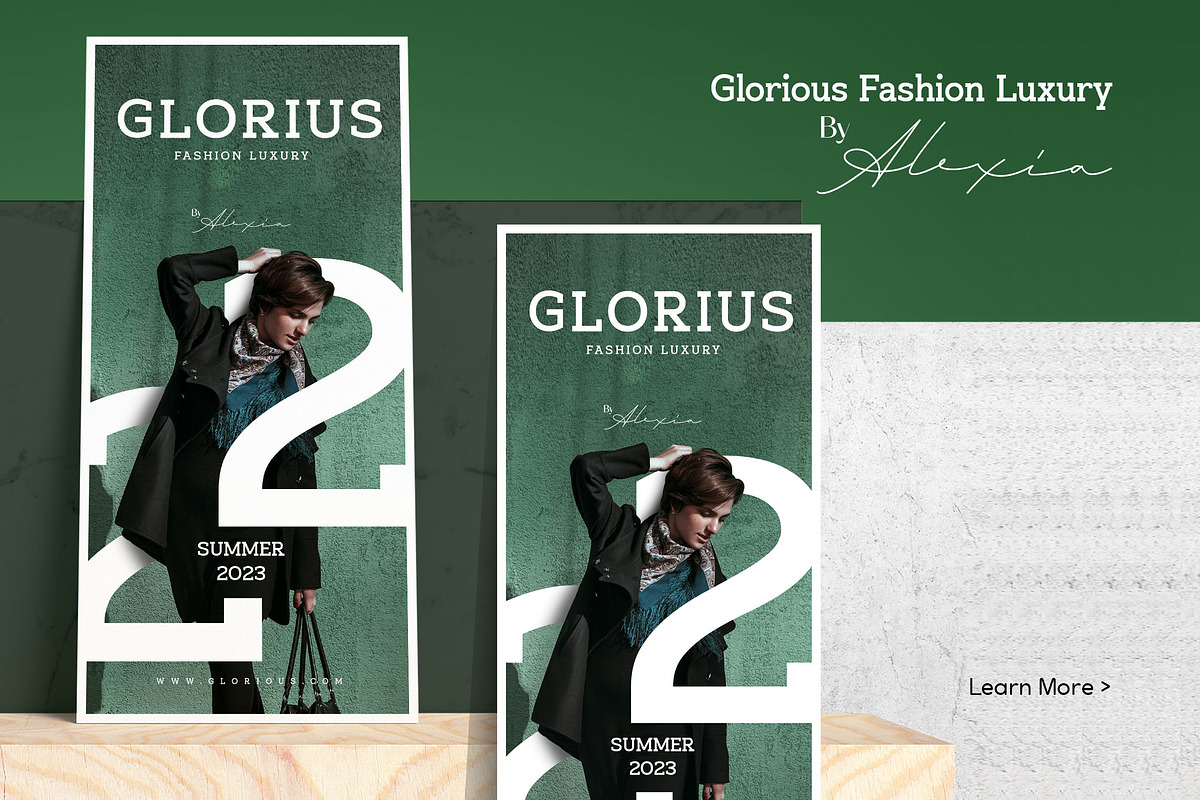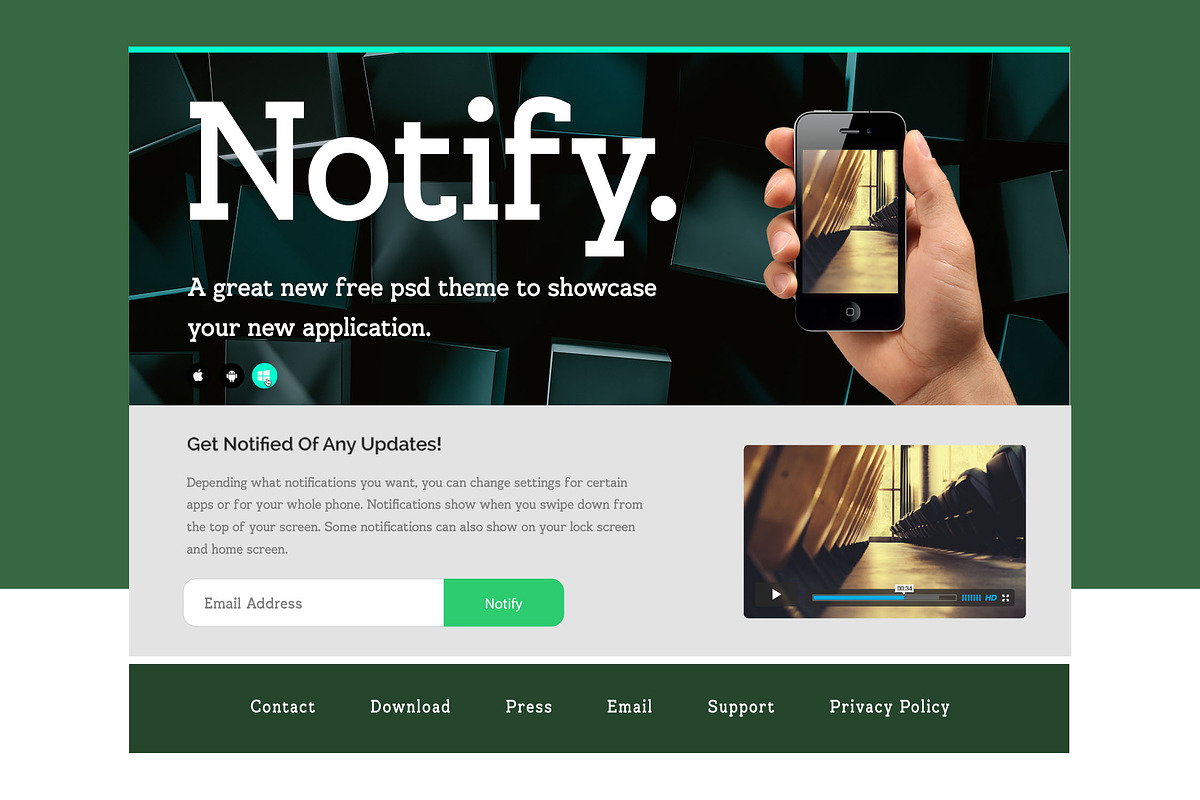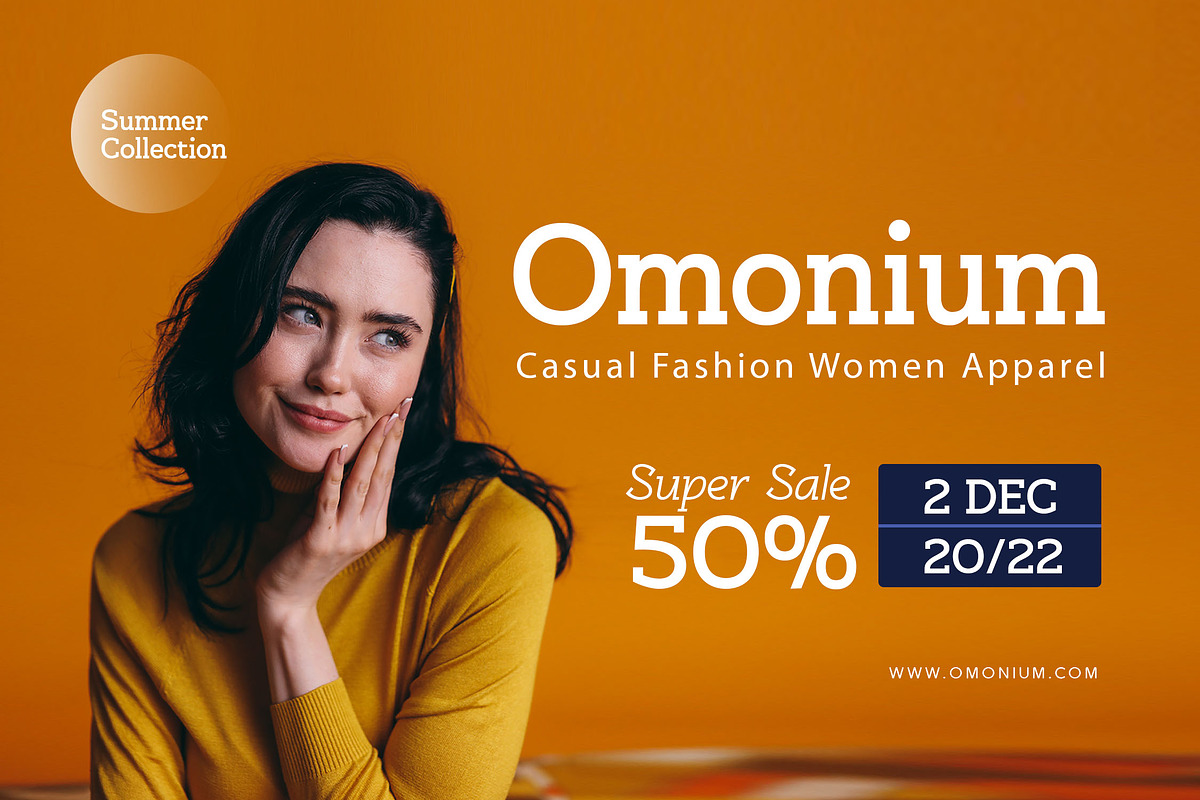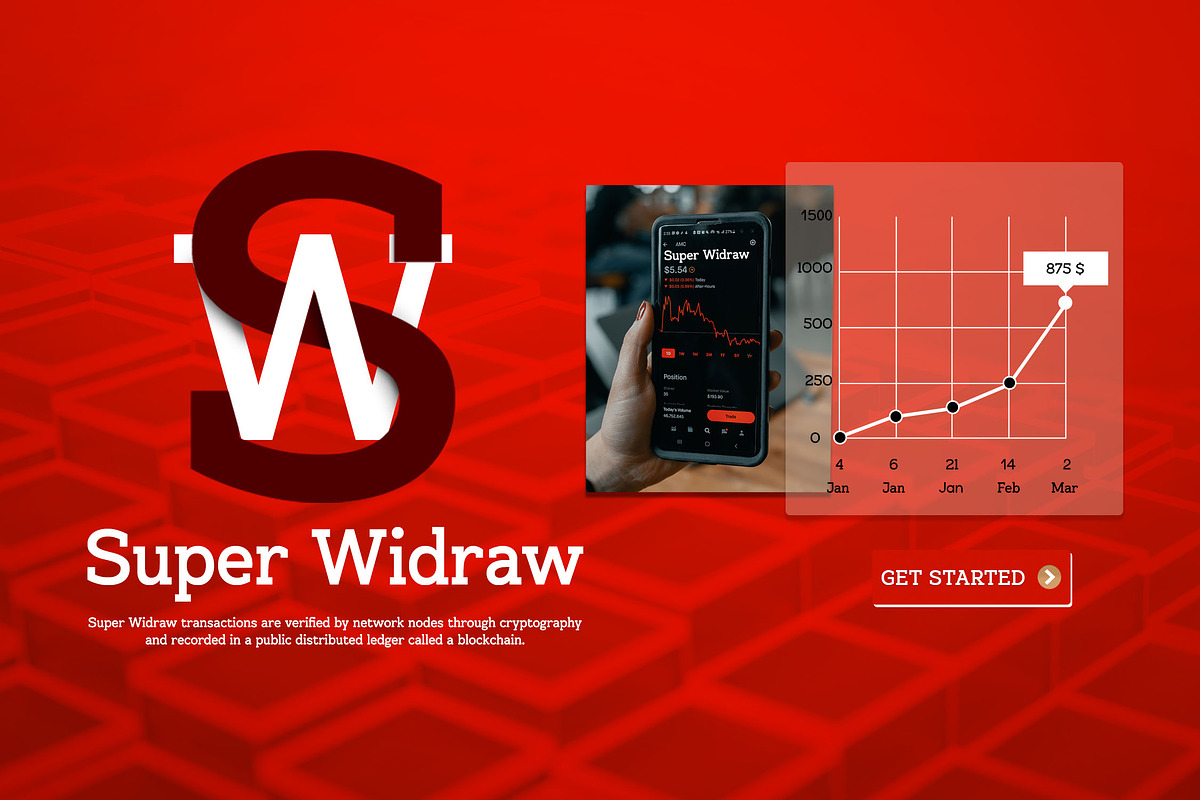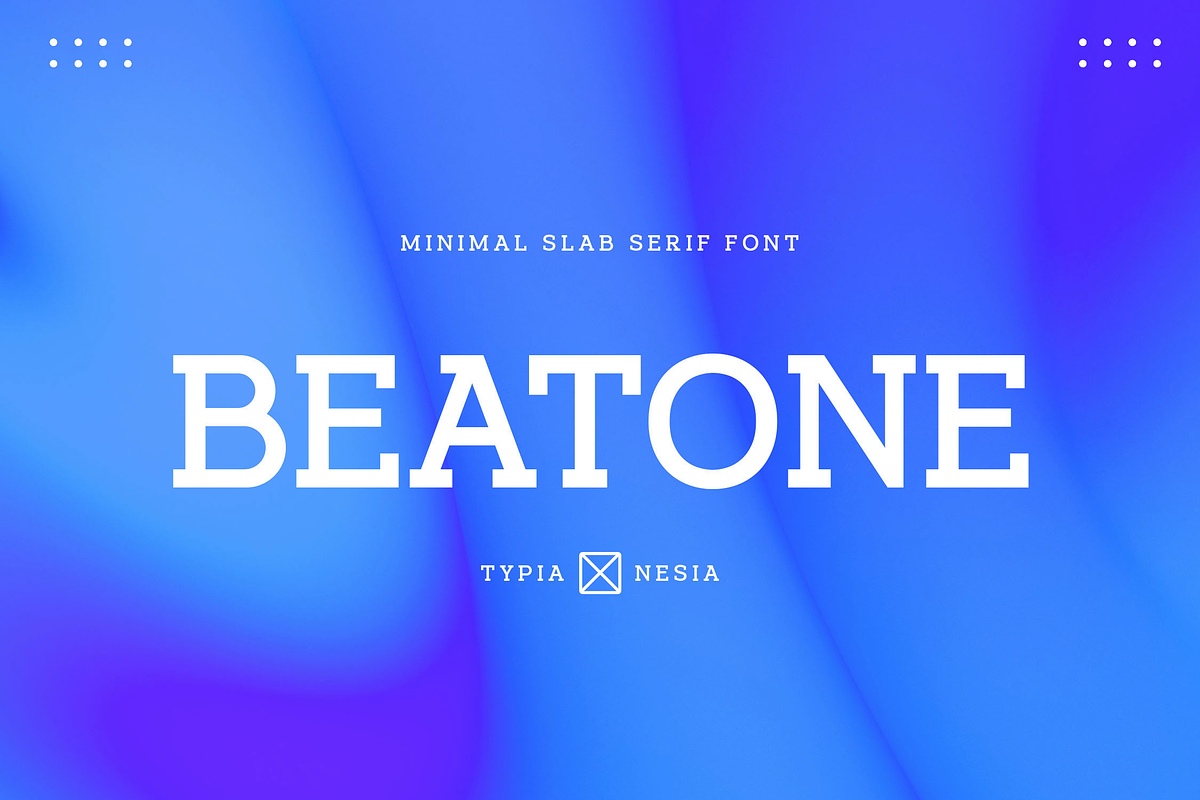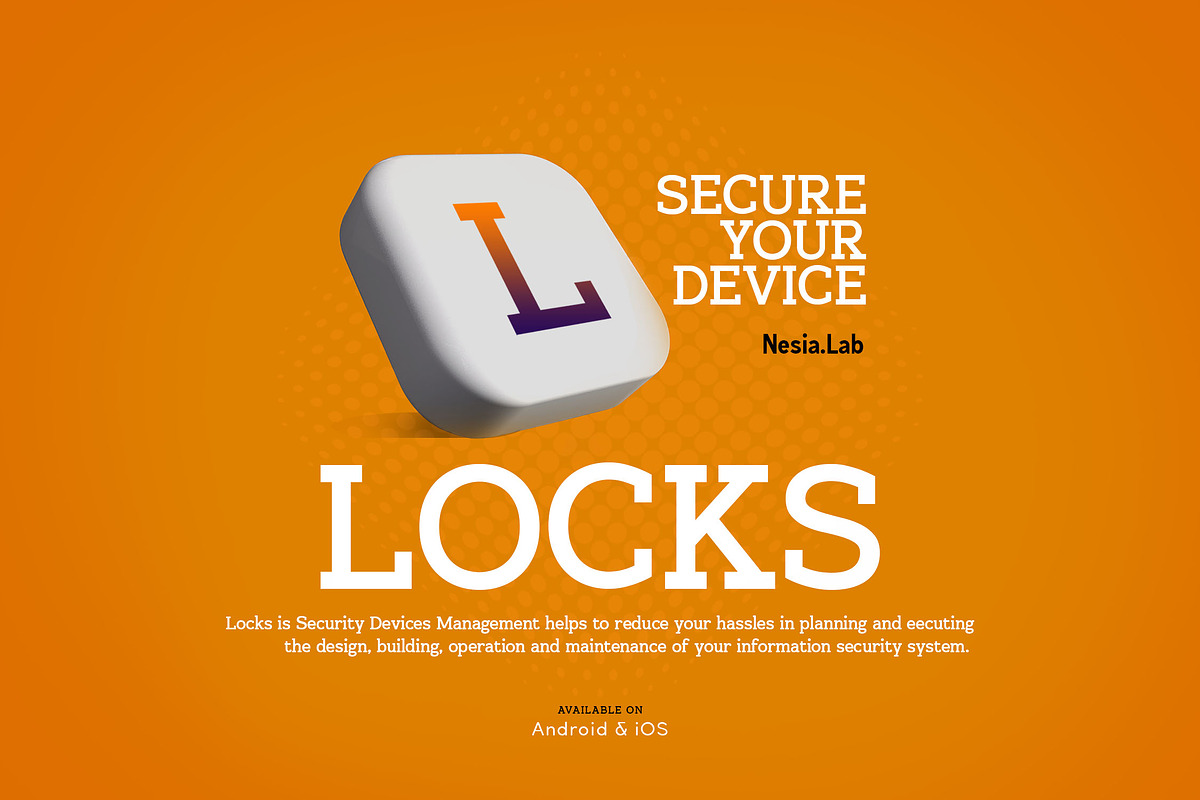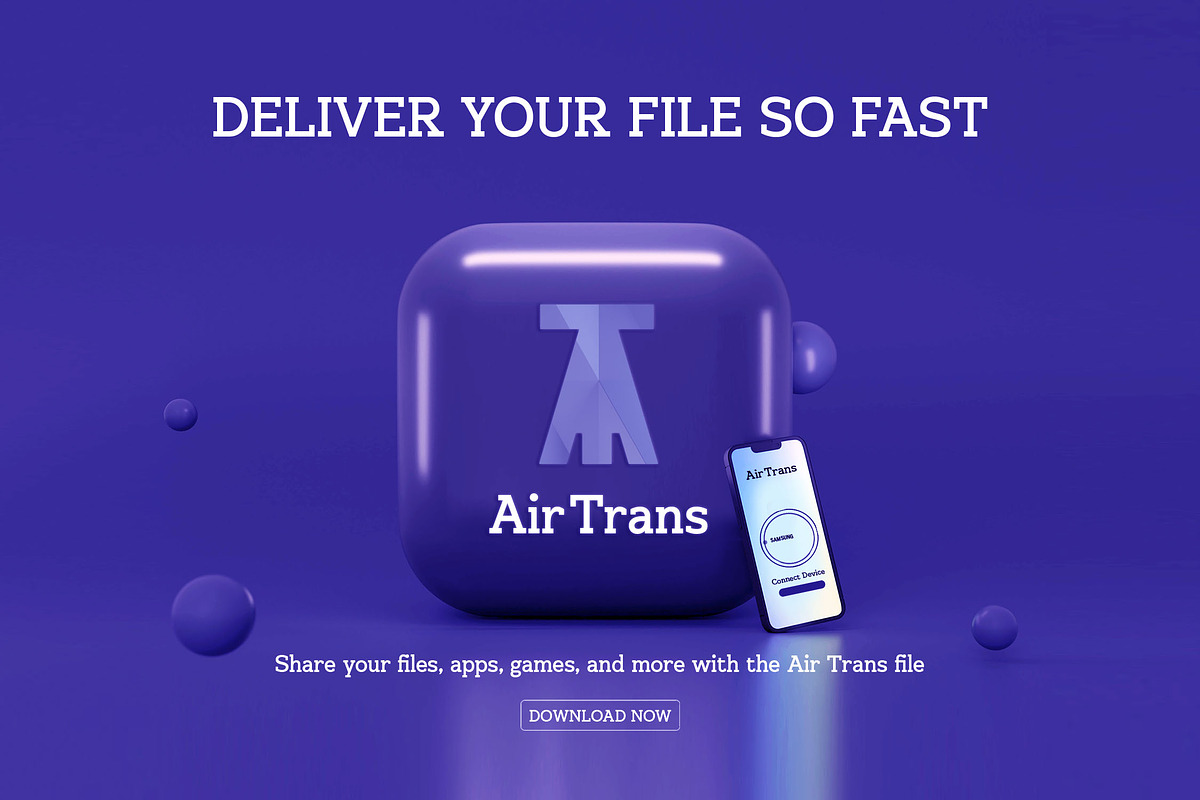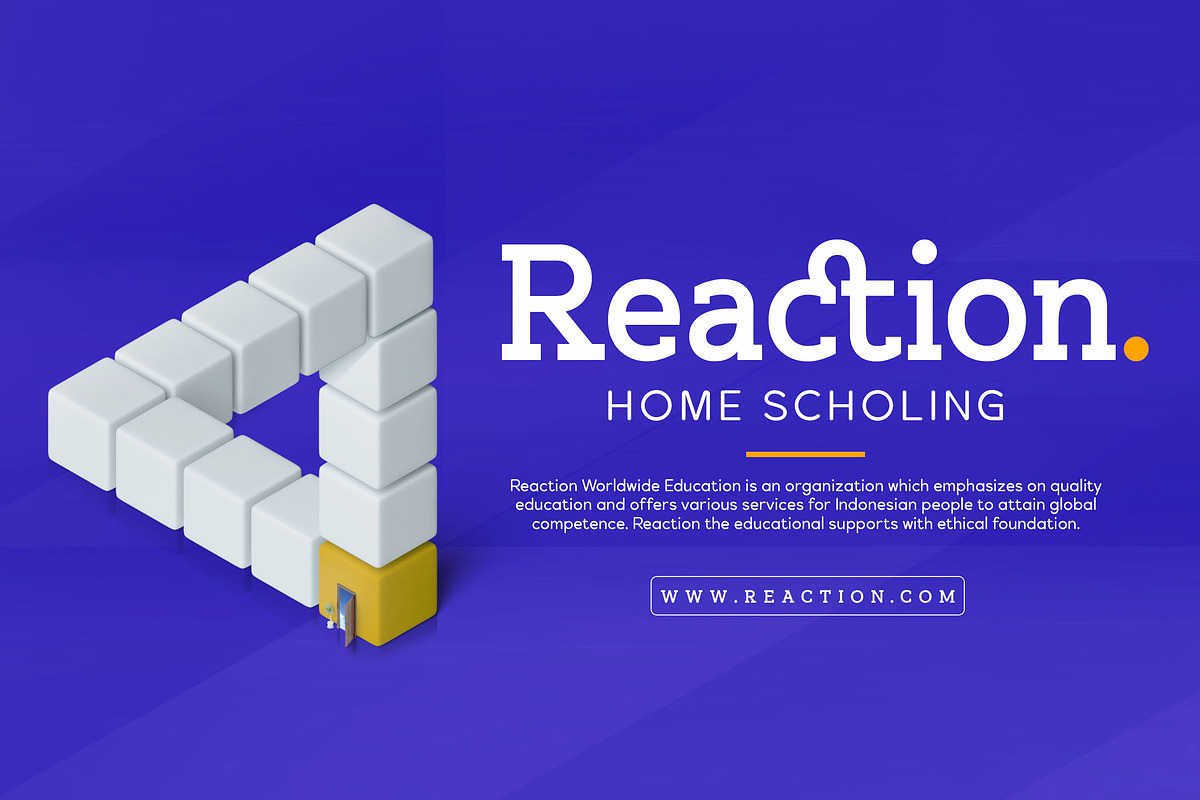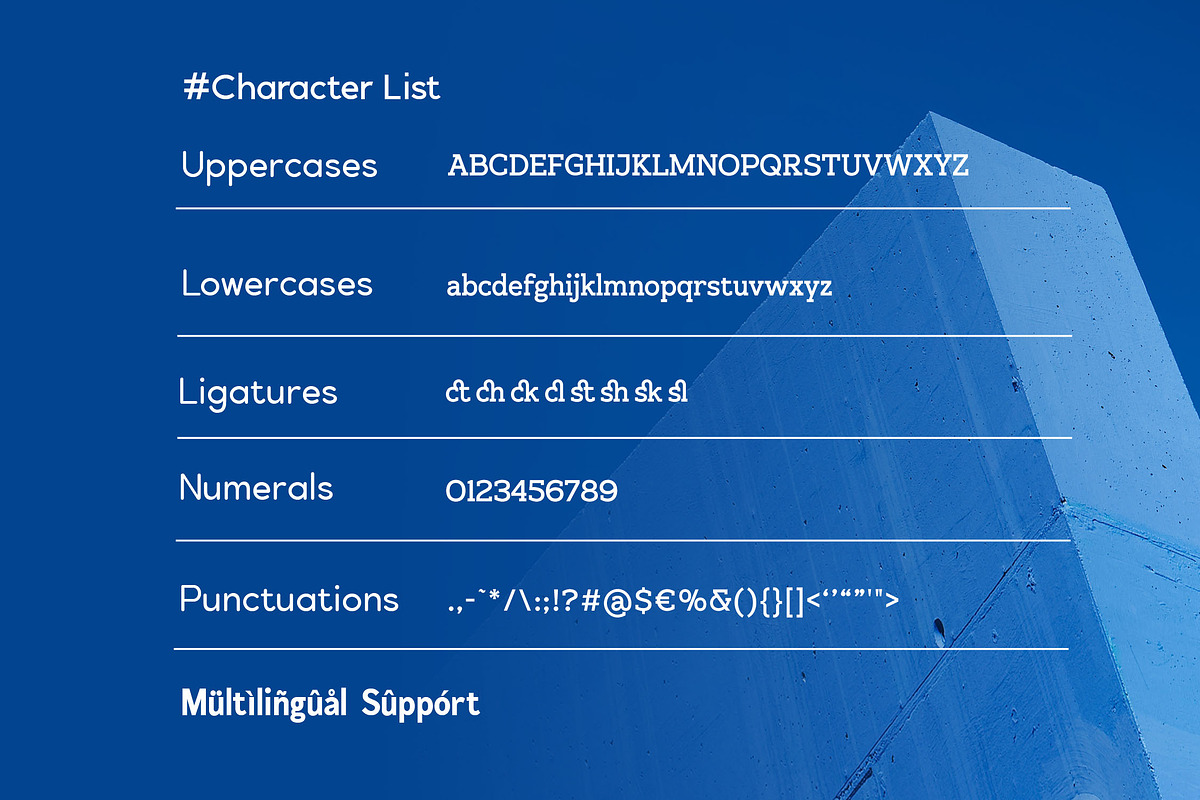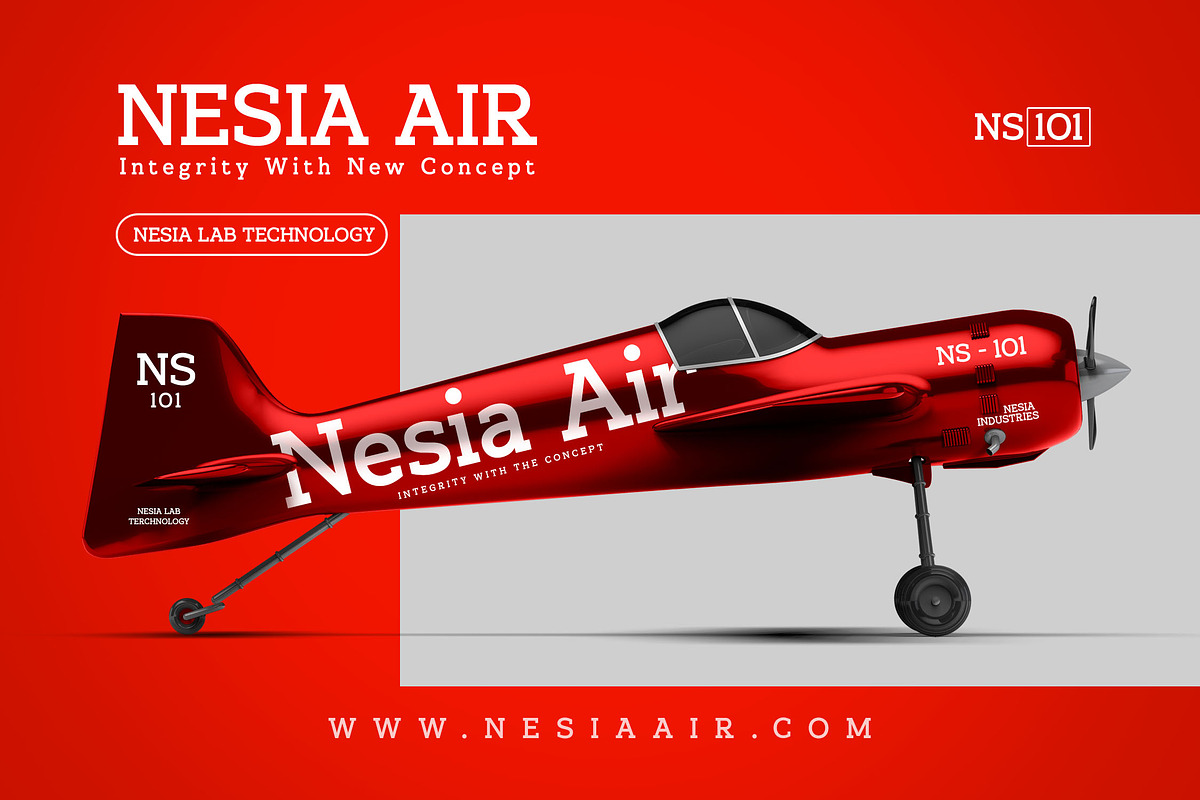
Beatone Slab Serif
Beatone - Modern Clean Minimalist Slab Serif Font - Timeless Logo Branding Display Font
Beatone is perfect for your up coming projects. Such as logo branding, editorial design, stationery design, esport design, game industry, sport racing, techno / gadget brand, digital music poster, apps startup design, modern advertising design, art quote, home decor, book/cover title, special events and any more.